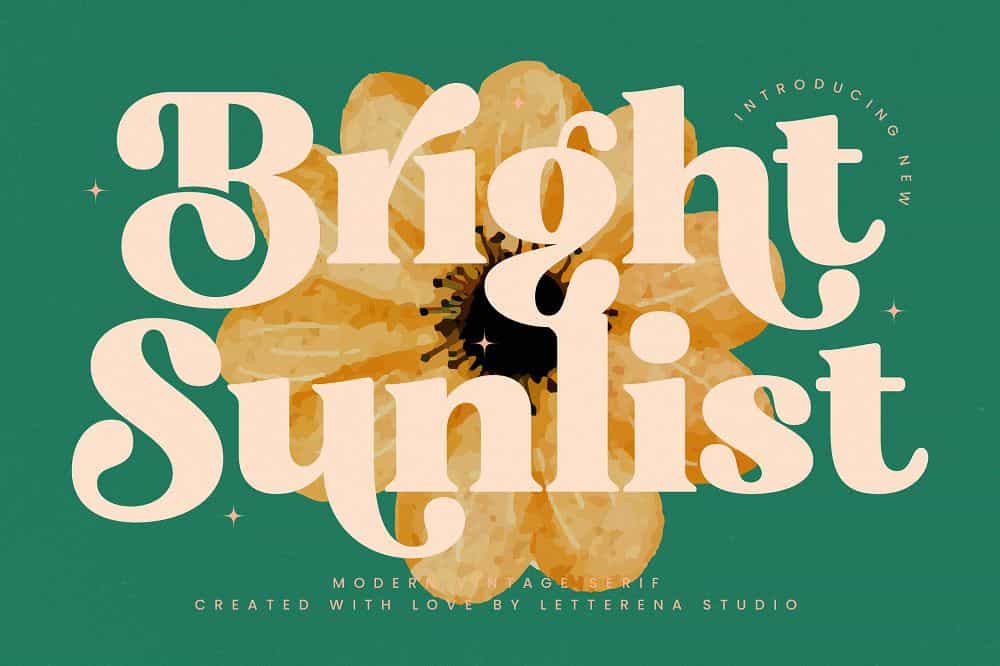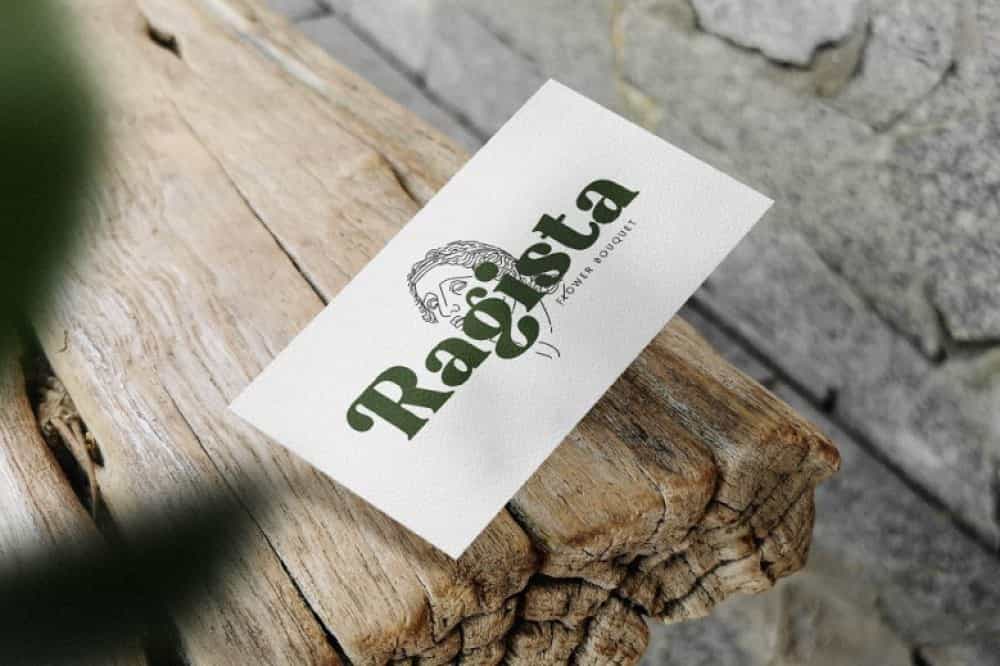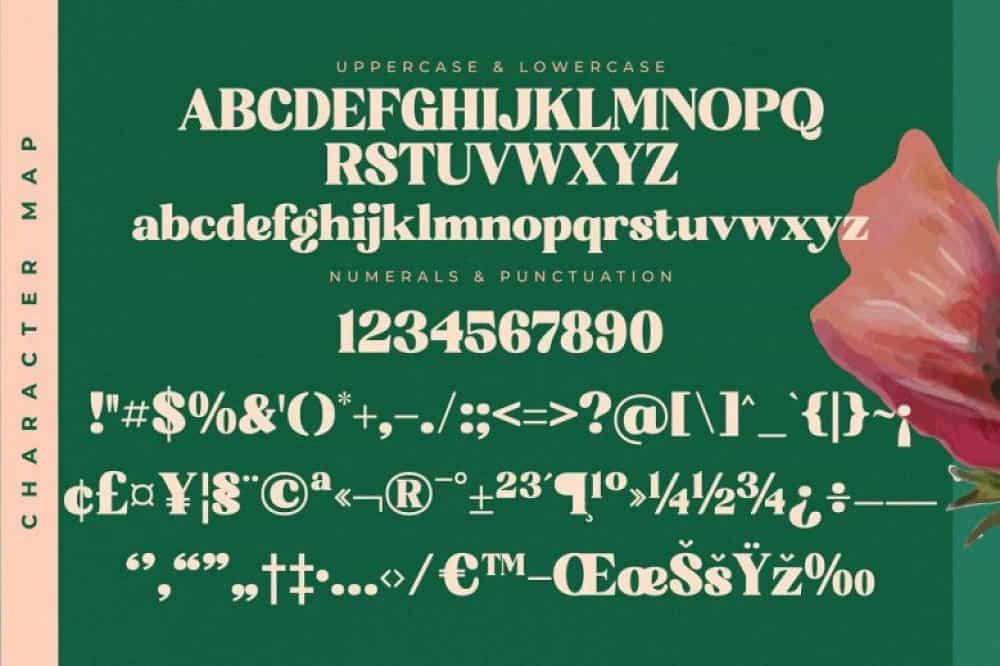
Bright Sunlist is a modern serif font, suitable for any projects such as: logos, branding, home accessories, product packaging, mugs, quotes, posters, shopping bags, t-shirts, book covers, name cards, invitation cards, greeting cards, labels, photography, watermarks, special events, and all your other luxury and beautiful projects that require the touch of a Luxury Serif.